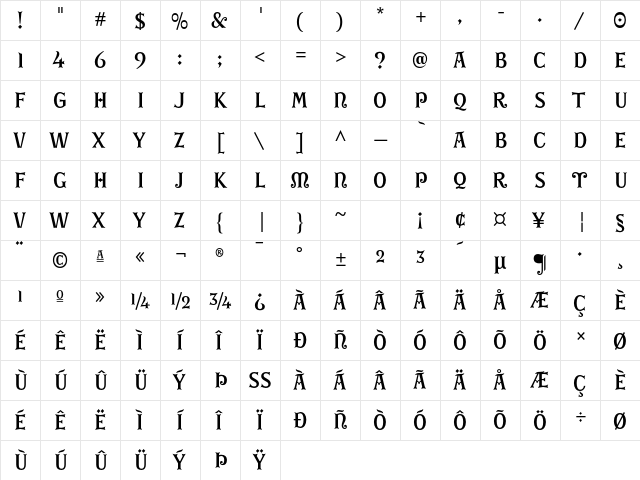
GEronto Bis Regular
| Designer | Jack Usine |
Design Context for GEronto Bis Typeface
GEronto Bis is a composed and adaptable typeface that performs quietly and consistently across a wide range of design contexts.
Pro Tip: Use GEronto Bis in both headline and body roles to test its range before committing to a single application.